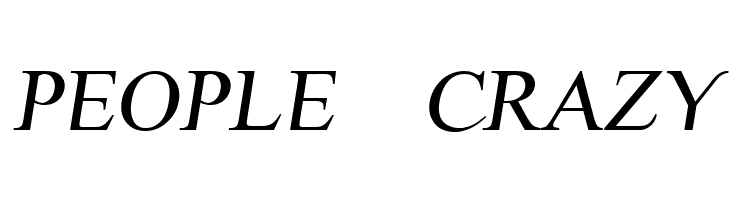
Fedyral Extra-Expanded Italic Font
- Font: Fedyral Extra-Expanded Italic
- Weight: Extra-Expanded Italic
An elegant italic font with smooth curves and dynamic strokes.